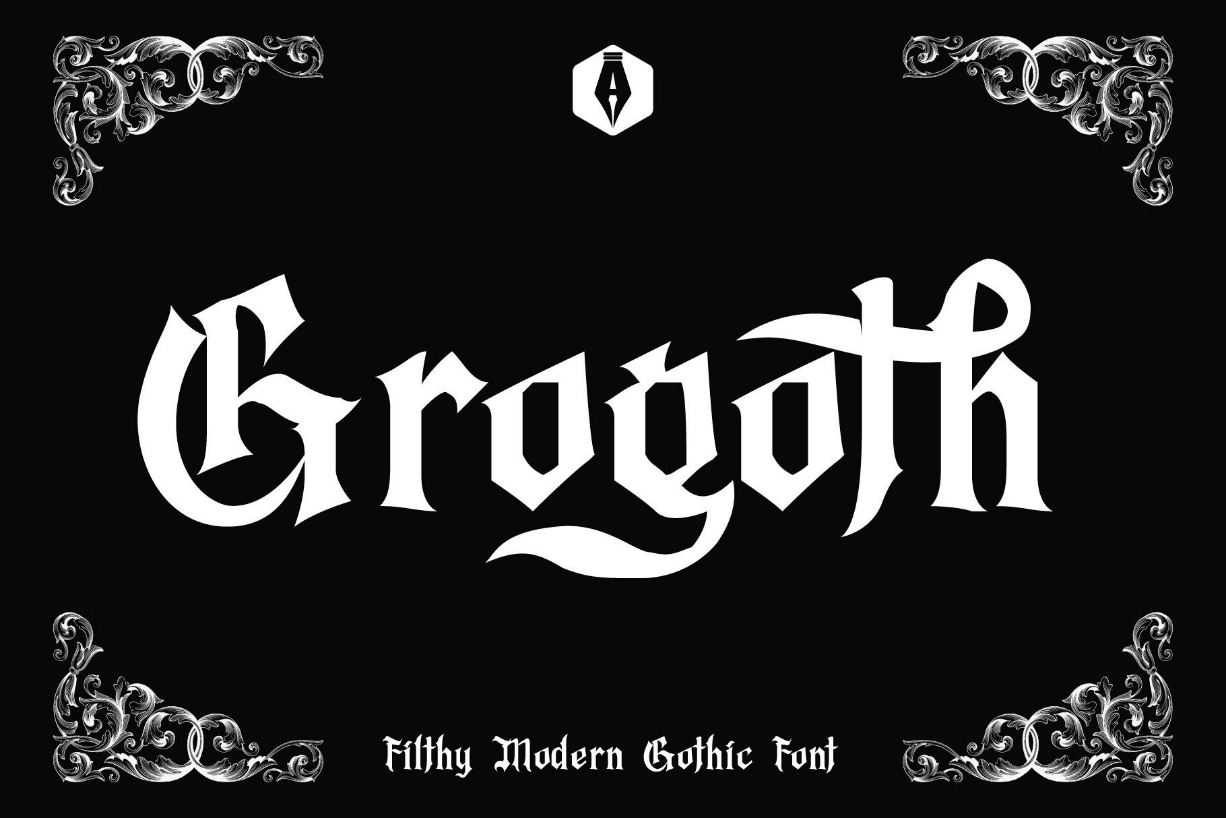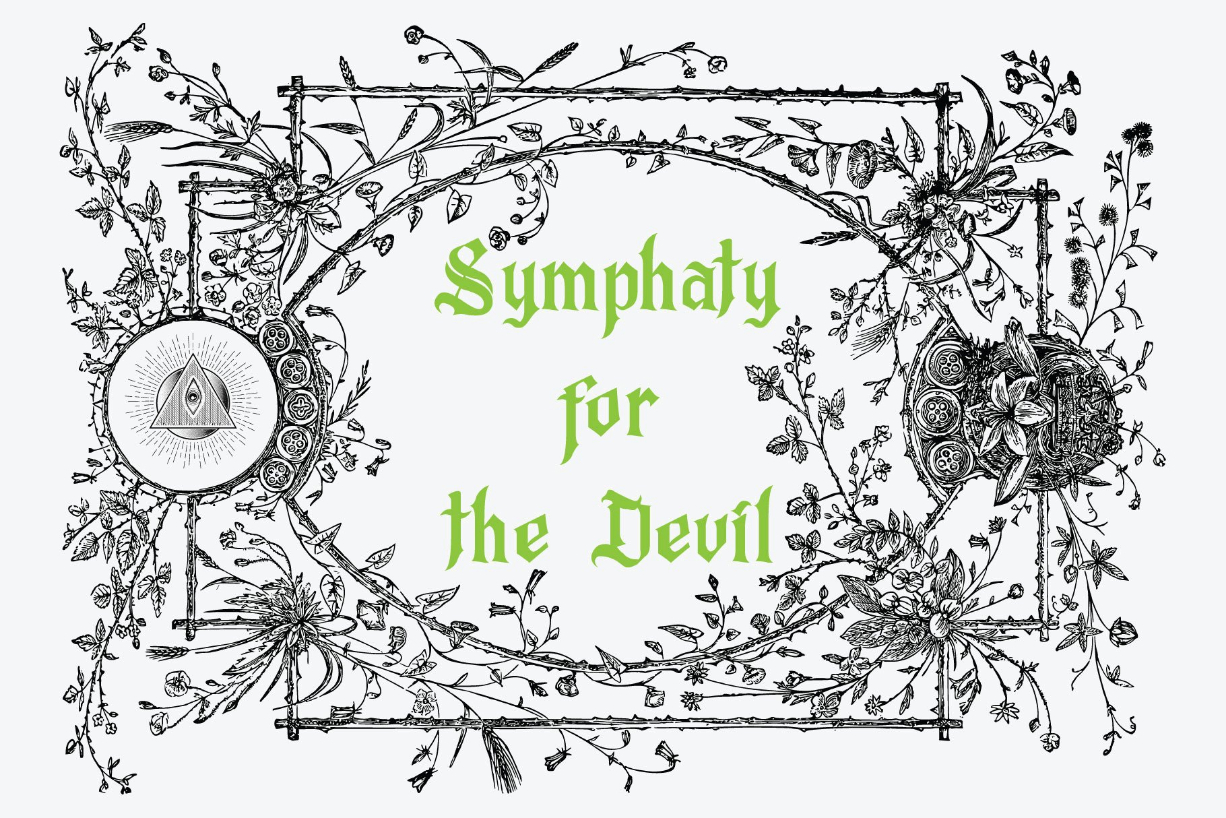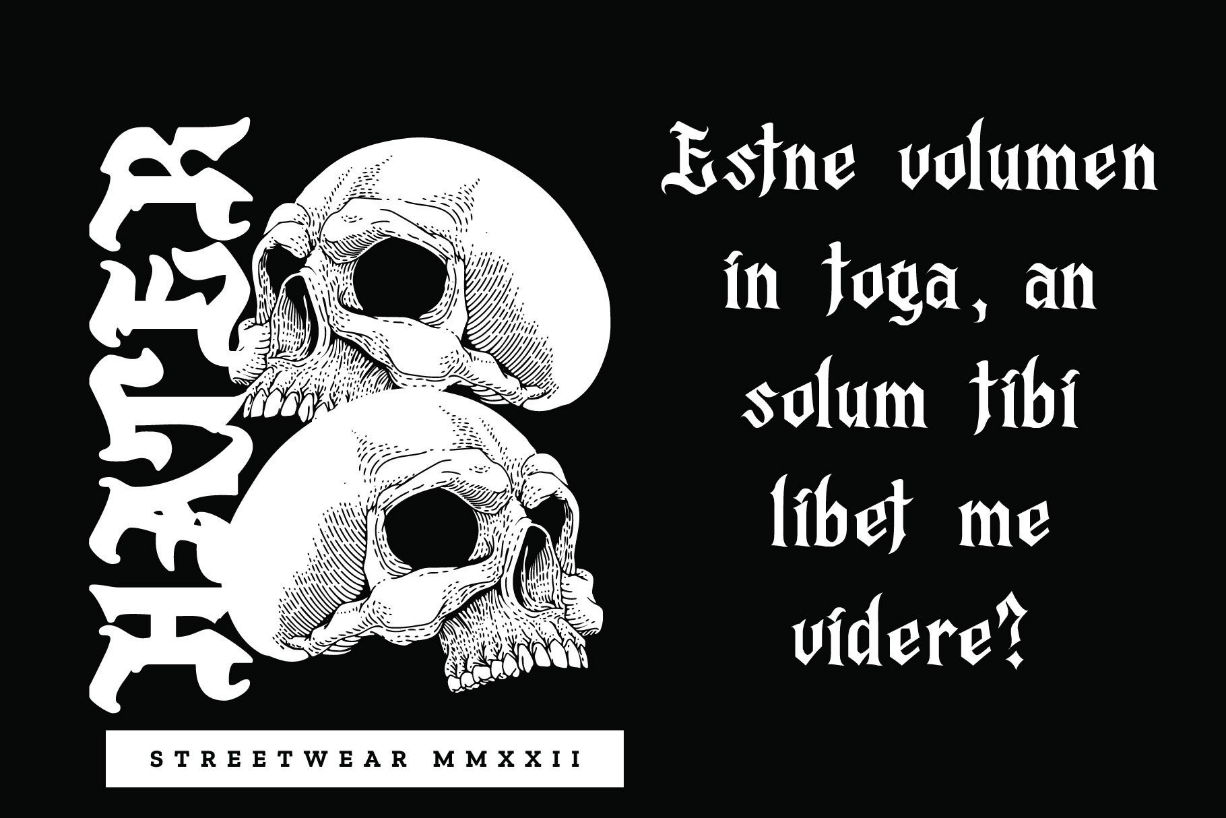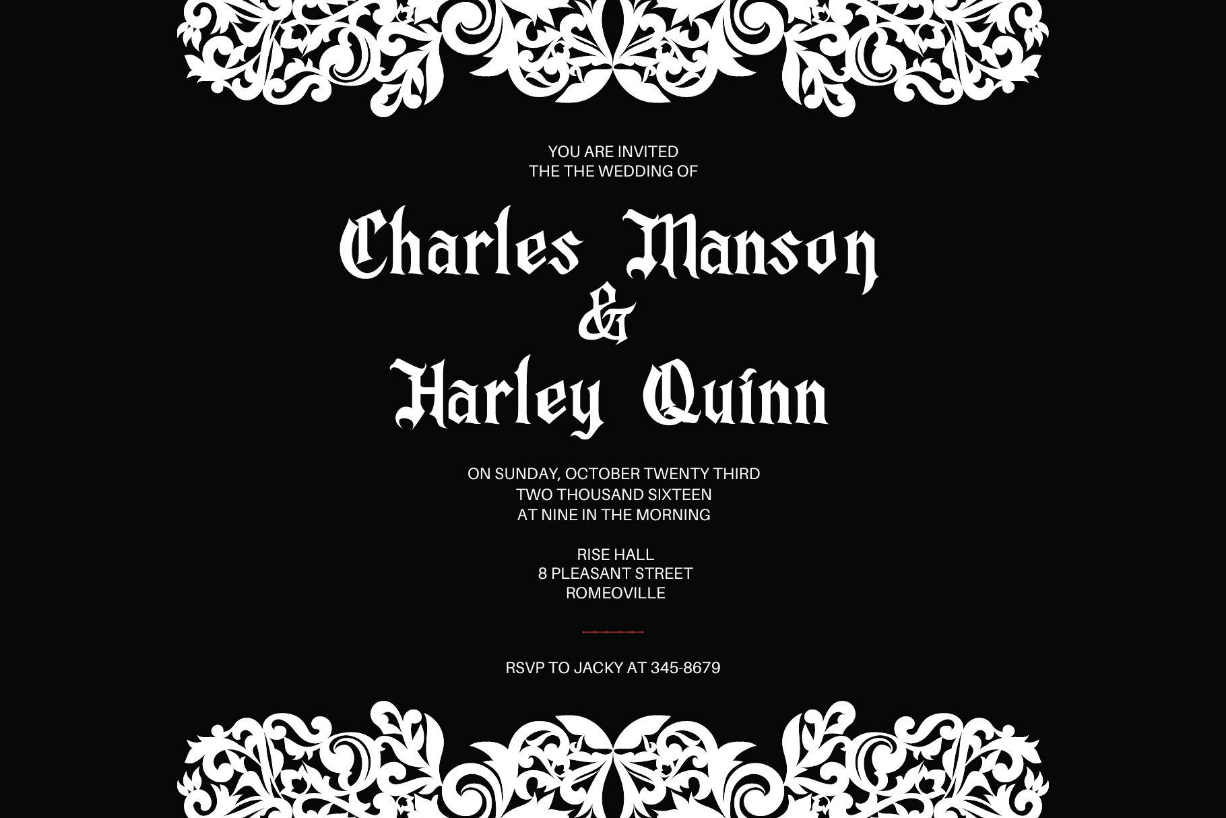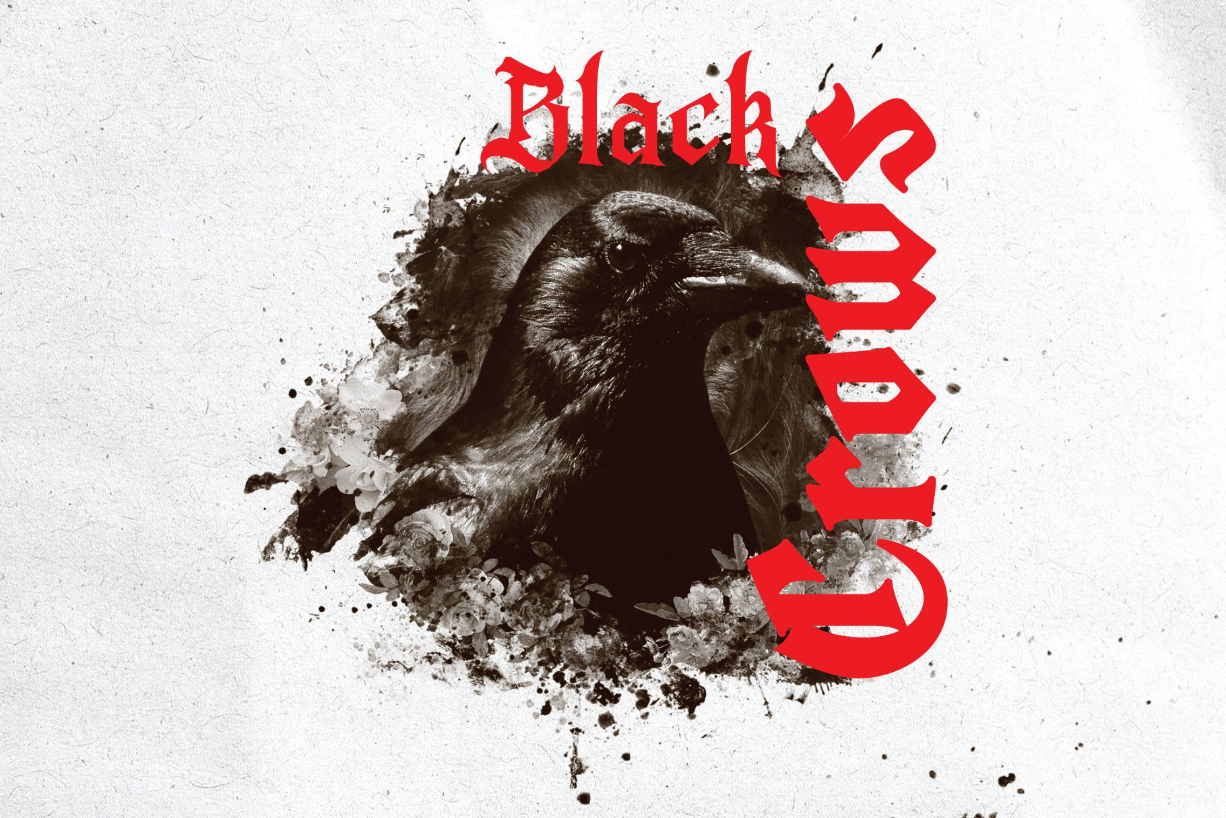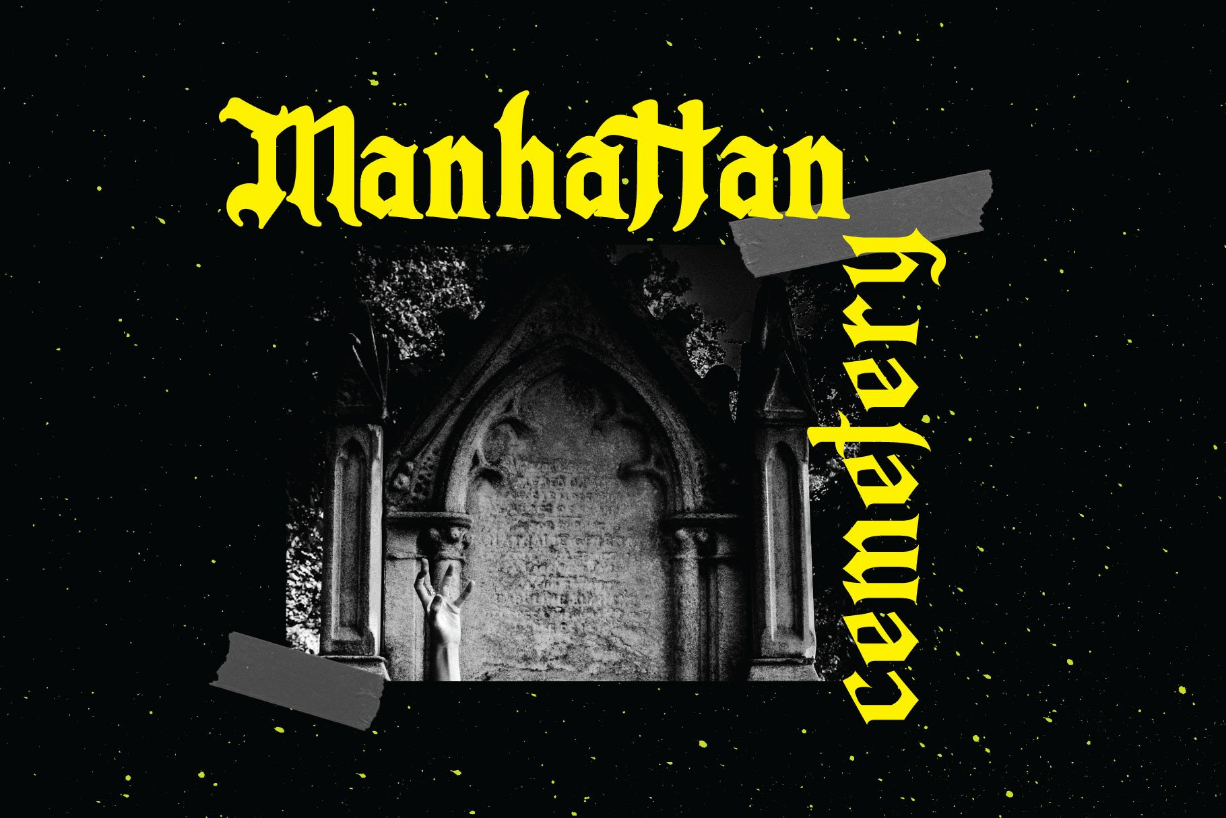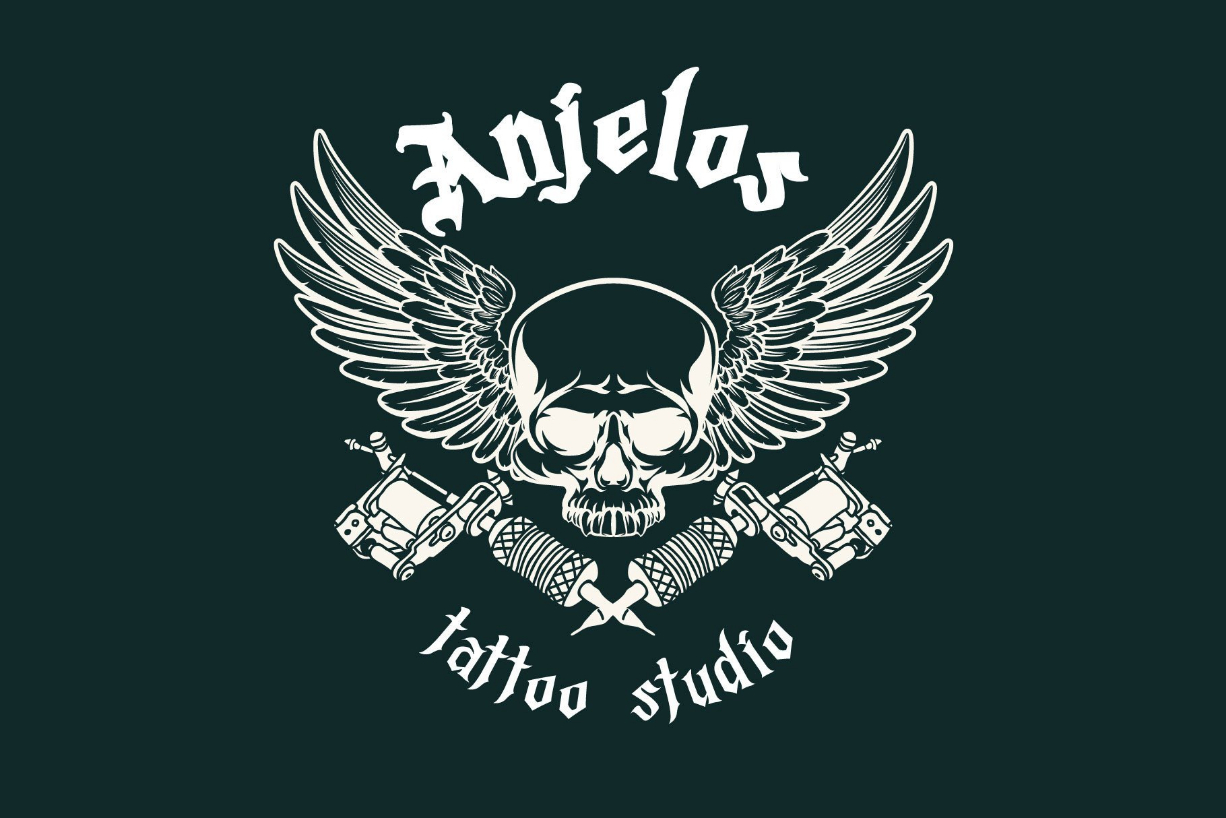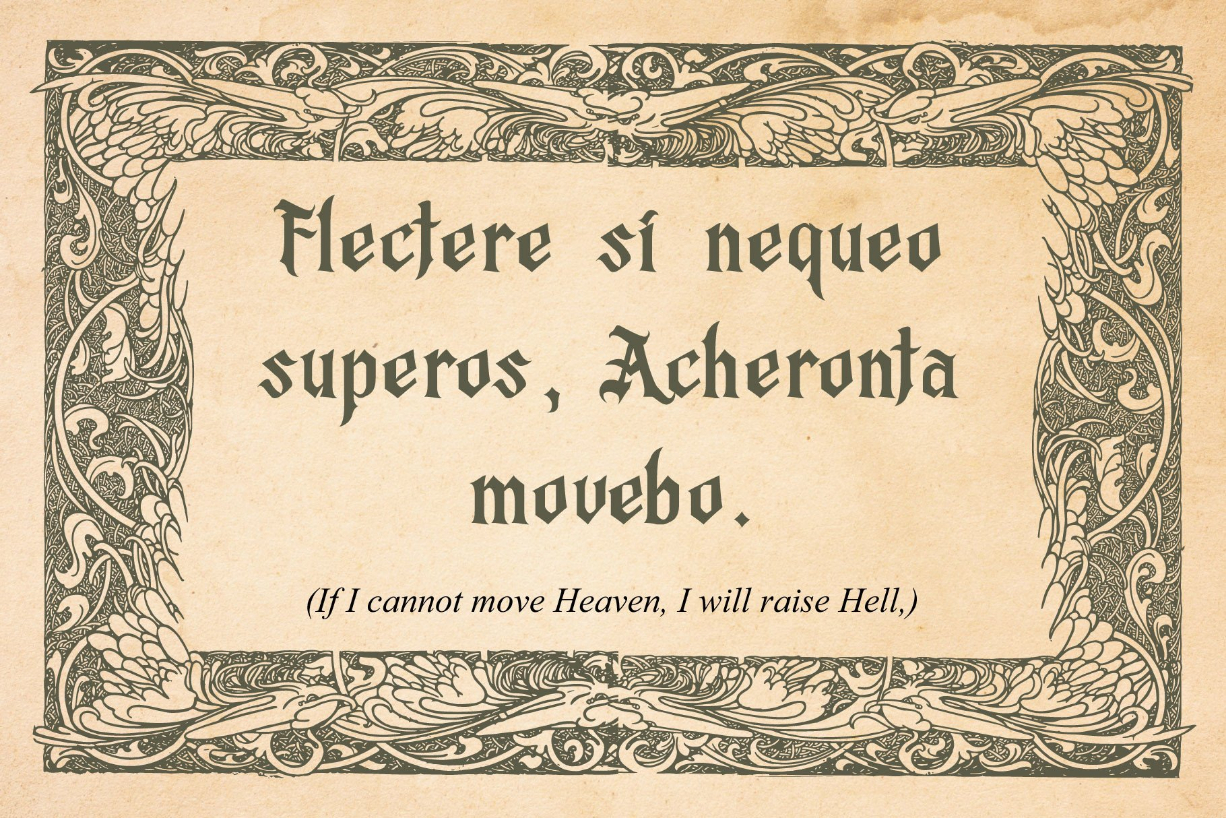
Grogoth Font
About Grogoth Font
Grogoth is a font inspired by the Blackletter typeface, made with a modern impression but still looks strong and unique.
Grogoth font is very suitable for use in making music album cover designs, tattoo logos, whiskey labels, packaging pomades and so on which are made with dark and strong concepts.